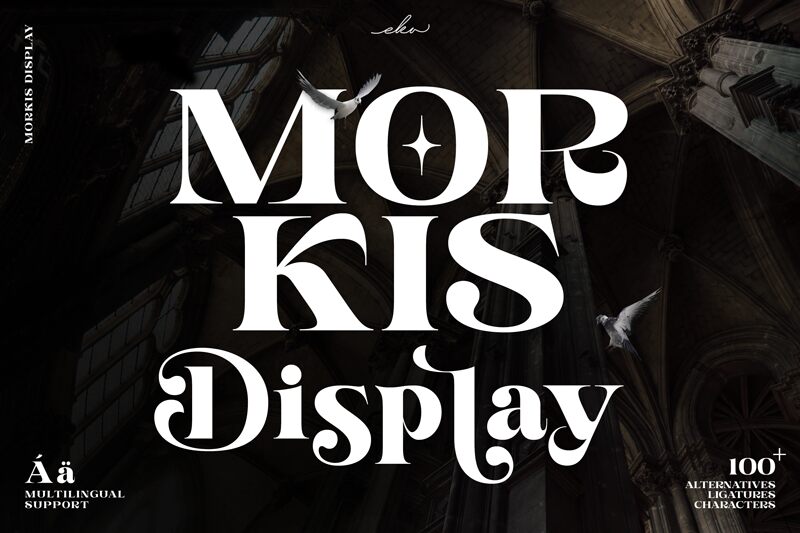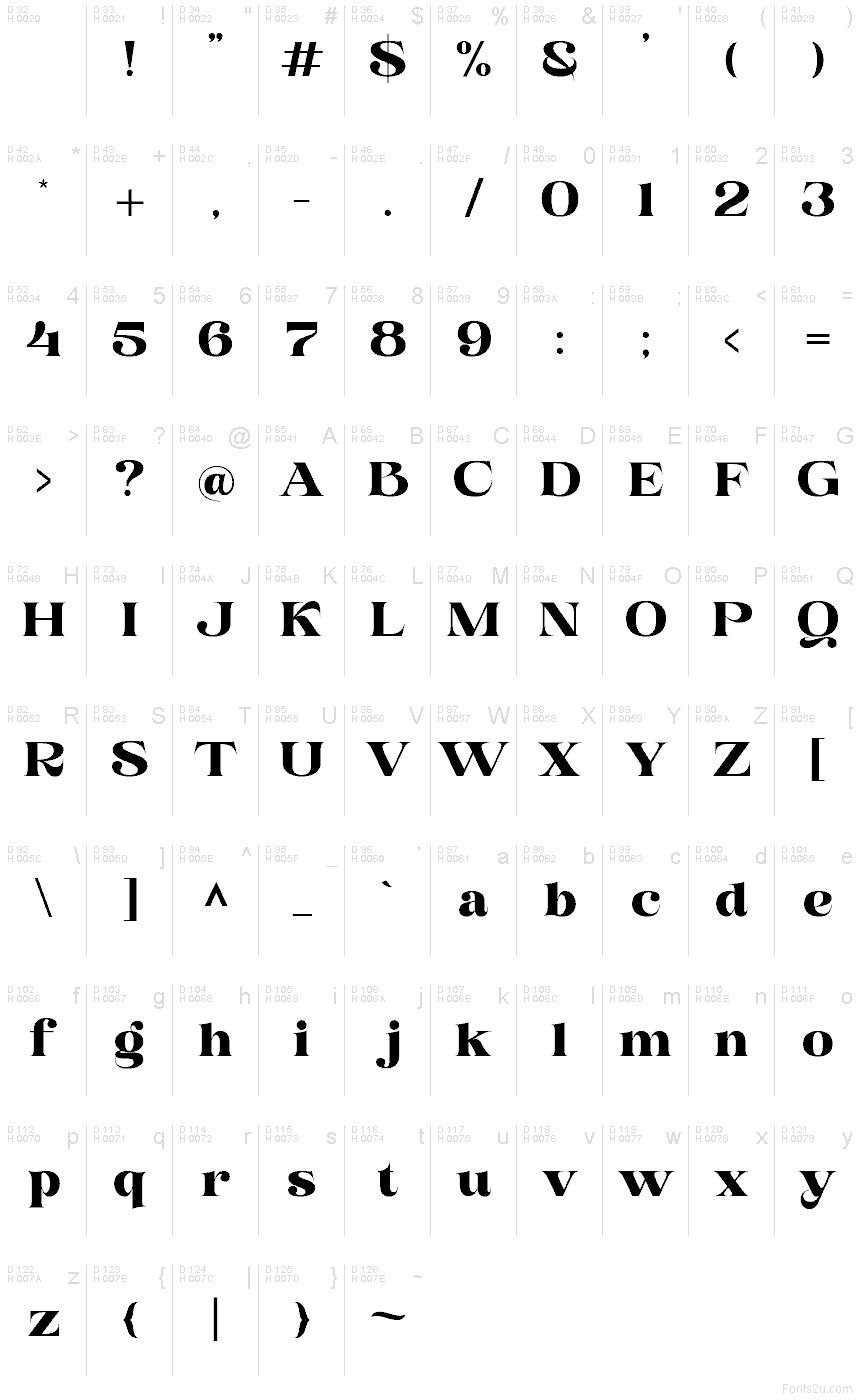
Morkis font by Eka Hermawan is a free serif typeface with a deep, inky presence and bold, sculpted curves. The letters feel carved rather than drawn, with heavy verticals, sharp wedge-like accents, and tight rhythm that pulls the eye across a word. It carries a slightly dramatic, Old World elegance, but the chunky forms and crisp edges keep it feeling contemporary and impactful rather than fussy.
Using Morkis, short words and phrases hit like a stamp-strong, dense, and memorable. This free font shines on book covers, editorial headlines, album art, boutique branding, striking posters, and bold packaging. It works beautifully when you let it breathe at larger sizes, then pair it with a clean geometric sans serif for body text or captions to balance its dark, expressive texture.